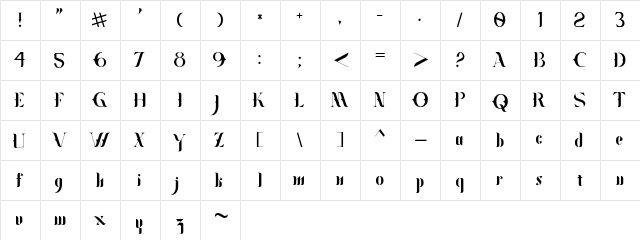
KOGOK Regular
| Designer | Gesang Kebak Khoiron |
Design Context for KOGOK Typeface
KOGOK is a composed and adaptable typeface that performs quietly and consistently across a wide range of design contexts.